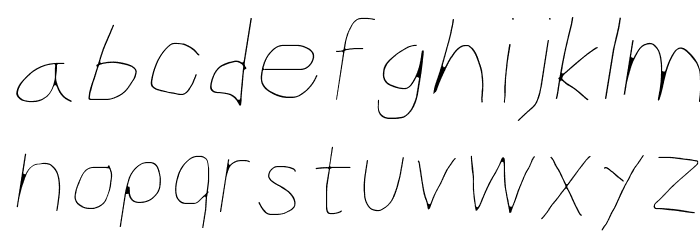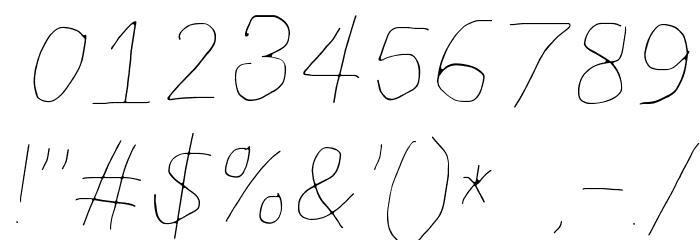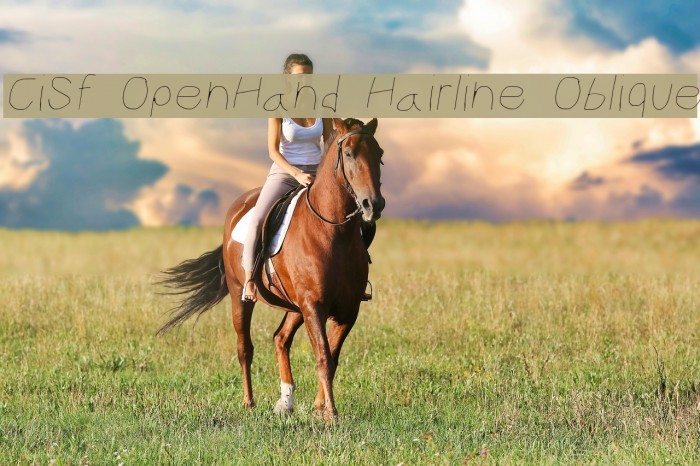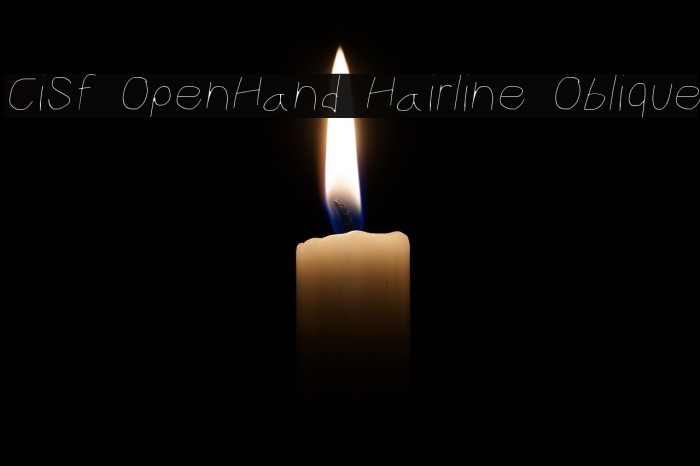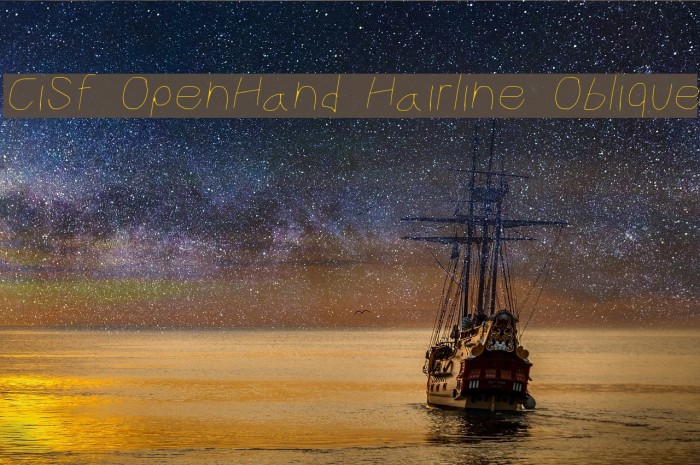
CiSf OpenHand Hairline Oblique Font
This font features a delicate, hand-drawn style with a slight oblique slant, giving it a casual and approachable feel. The strokes are thin and consistent, creating a light and airy appearance. Each character maintains a uniform height, contributing to a cohesive look across both uppercase and lowercase letters. The numerals and special characters follow the same slender and slightly tilted design, ensuring harmony throughout the font. Its simplicity and elegance make it suitable for projects that require a personal touch.
A thin, hand-drawn font with an oblique slant, offering a casual and elegant style.
- Proposed Projects: Ideal for personal invitations, greeting cards, and creative projects that benefit from a handwritten touch.
- Overall Style: Casual
- Use Case: Headlines, Invitations, Personal notes